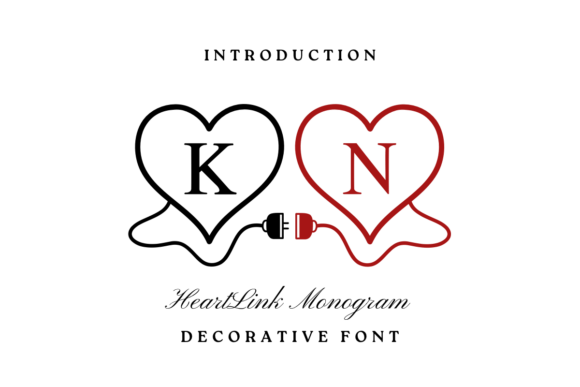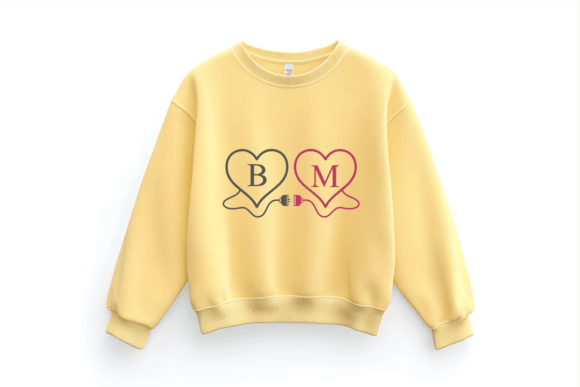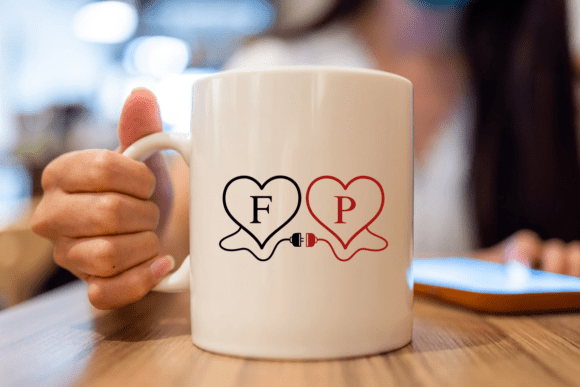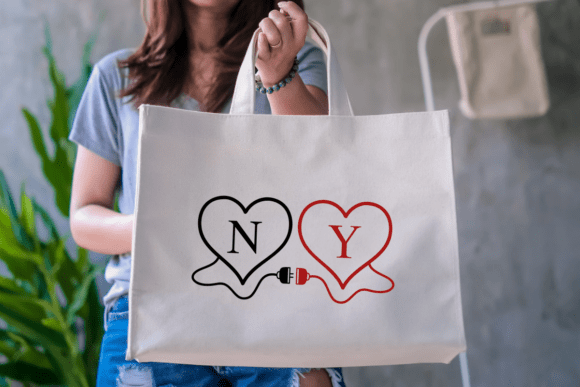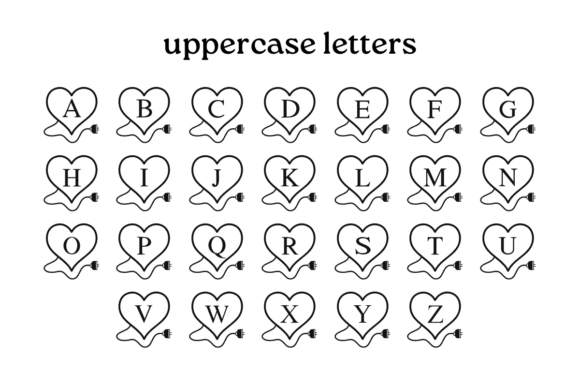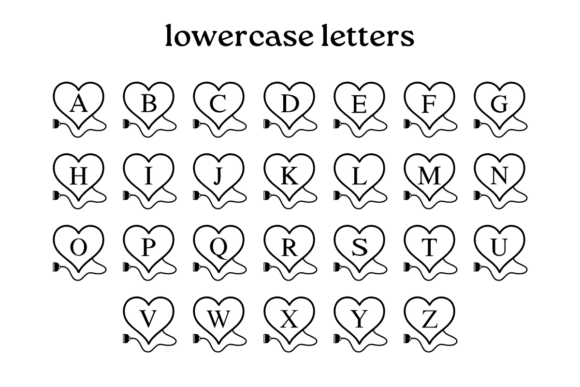
Discover the Perfect Touch for Your Creative Projects
You know that moment when you’re brainstorming ideas for a new project, and you stumble upon a font that makes everything click into place? It’s like a spark of inspiration that sets your creativity ablaze! For me, that moment came when I discovered the Heartlink Monogram Font.
This lovely decorative font is designed to add a touch of elegance and sophistication to your creative projects. Whether you’re working on a wedding invitation, a logo, or a custom design, Heartlink Monogram Font is the perfect choice. Its unique monogram style makes it a valuable asset for designers looking to add a personal touch to their work.
So, what sets Heartlink Monogram Font apart? Its versatility and elegance make it a go-to choice for designers who want to create stunning and memorable designs. With Heartlink Monogram Font, you’ll be able to elevate your projects and leave a lasting impression on your audience.
Heartlink Monogram Font Key Features
- Font Style: Monogram font with a modern and elegant design
- Unique Characteristics: Customizable with various line styles, colors, and effects to create unique monograms
Heartlink Monogram Font Review
I’ve had the chance to play around with the Heartlink Monogram Font, and overall, I’m quite impressed with its unique charm. ✨ The font’s monogram-style letters add a touch of sophistication and elegance, making it perfect for wedding invitations, event branding, or any other project that requires a bit of luxury.
- Unique monogram-style letters that add a touch of sophistication.
- Well-suited for wedding invitations, event branding, and other luxury projects.
However, there are a few limitations to keep in mind ⚠️. The font may not be suitable for projects that require a more modern or edgy feel, and the monogram-style letters may be too ornate for some users. Additionally, the font’s legibility can be affected by the size and spacing of the text.
Overall, I think the Heartlink Monogram Font is a great choice for designers looking to add a touch of elegance and sophistication to their projects. While it may not be the best fit for every project, its unique charm and versatility make it a solid addition to any designer’s toolkit.
The Heartlink Monogram Font is commonly used in:
– Wedding invitations and stationery.
– Branding and logo design.
– Personalized gifts and stationery.